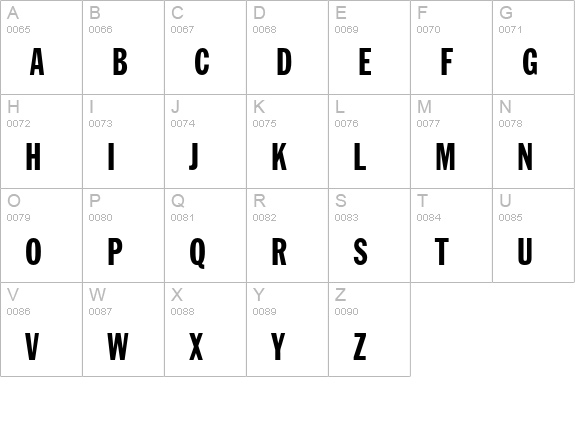
FranklinGothicEF-ExtraCondens is a sleek and modern typeface that exudes sophistication and professionalism. With its tall and narrow letterforms, it commands attention and adds a touch of elegance to any design. The condensed style of this font makes it perfect for creating bold headlines or eye-catching logos. What's even better is that FranklinGothicEF-ExtraCondens is available for free download at FontsMarket.com. This means you can easily access this high-quality font for your personal or commercial projects without any cost. Don't miss out on the opportunity to enhance your designs with this versatile and stylish typeface.